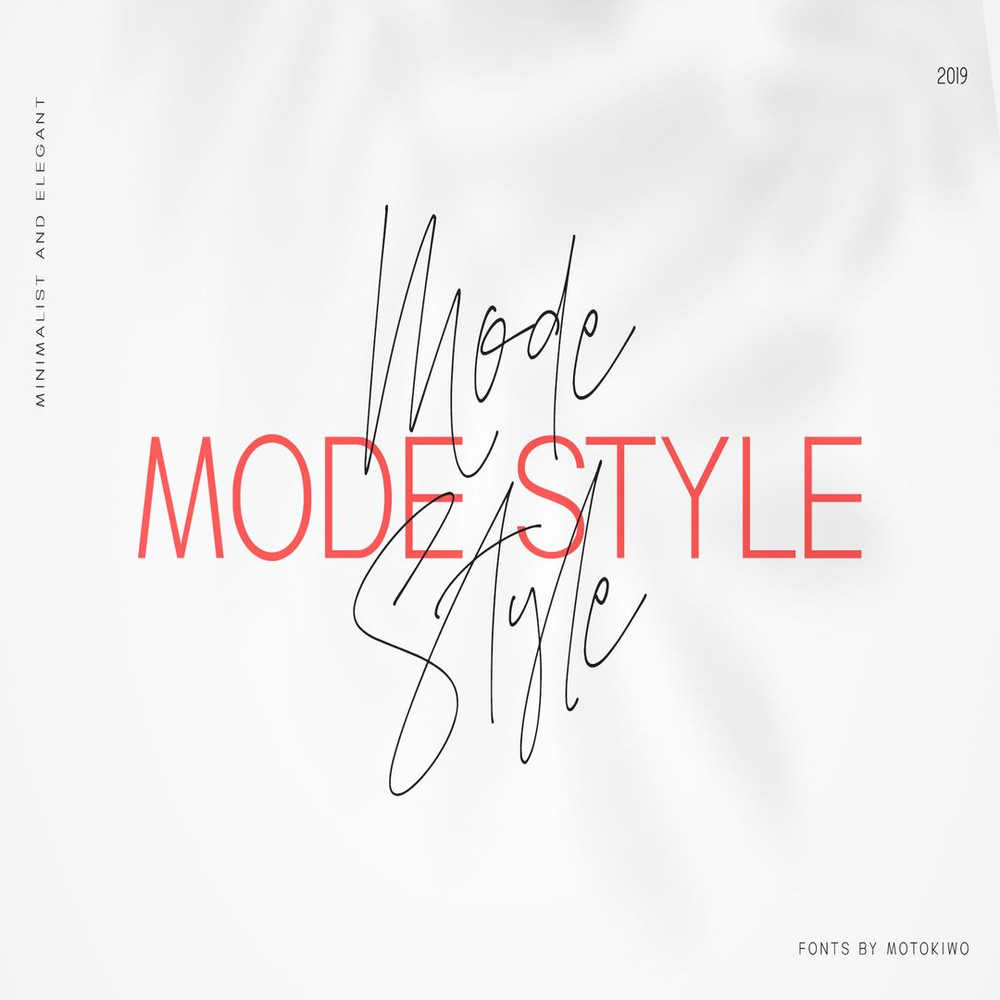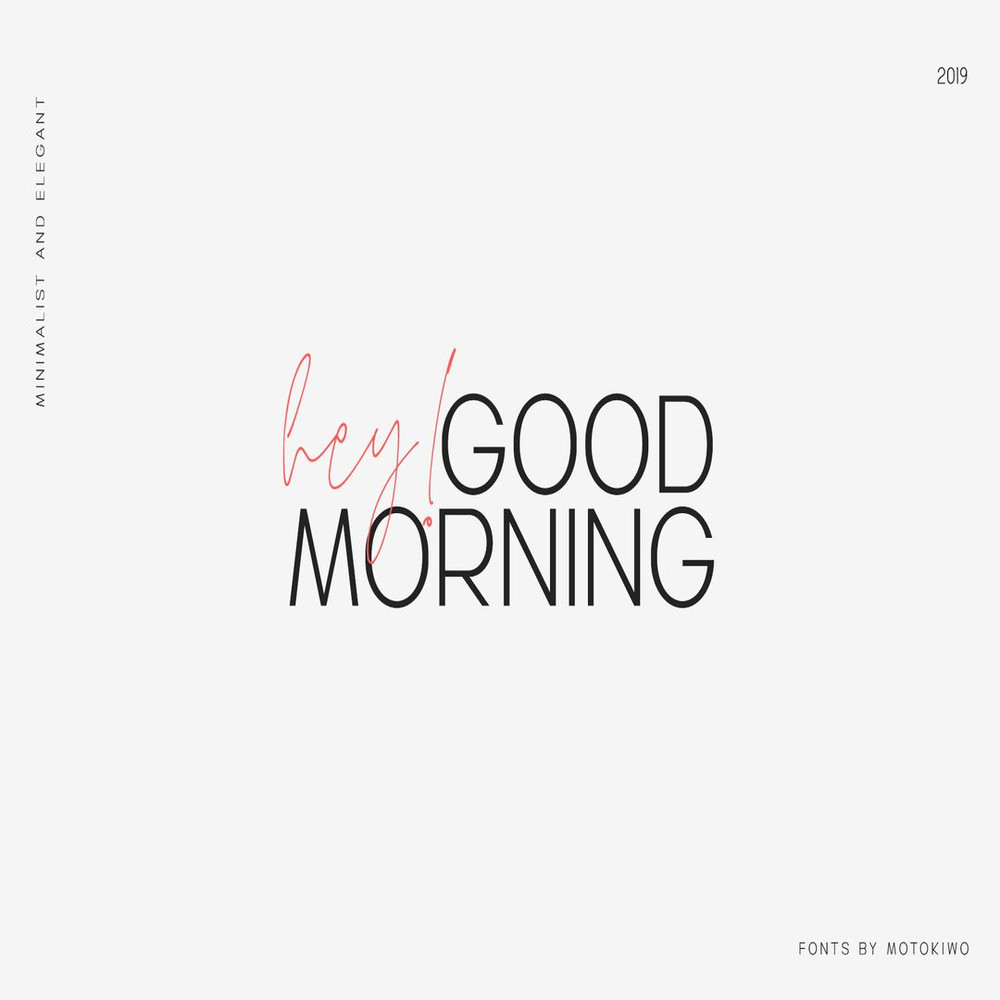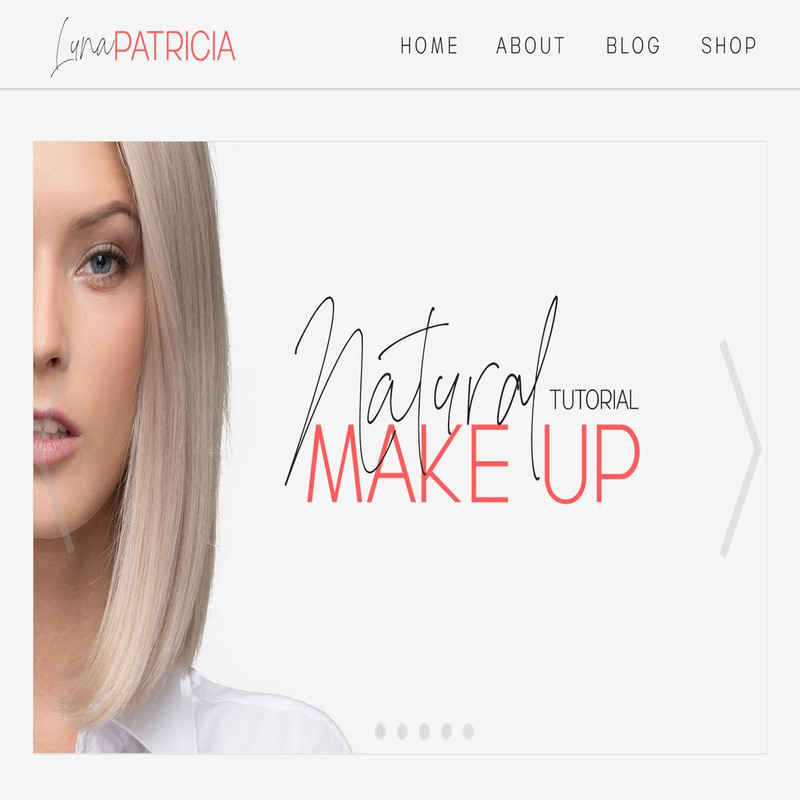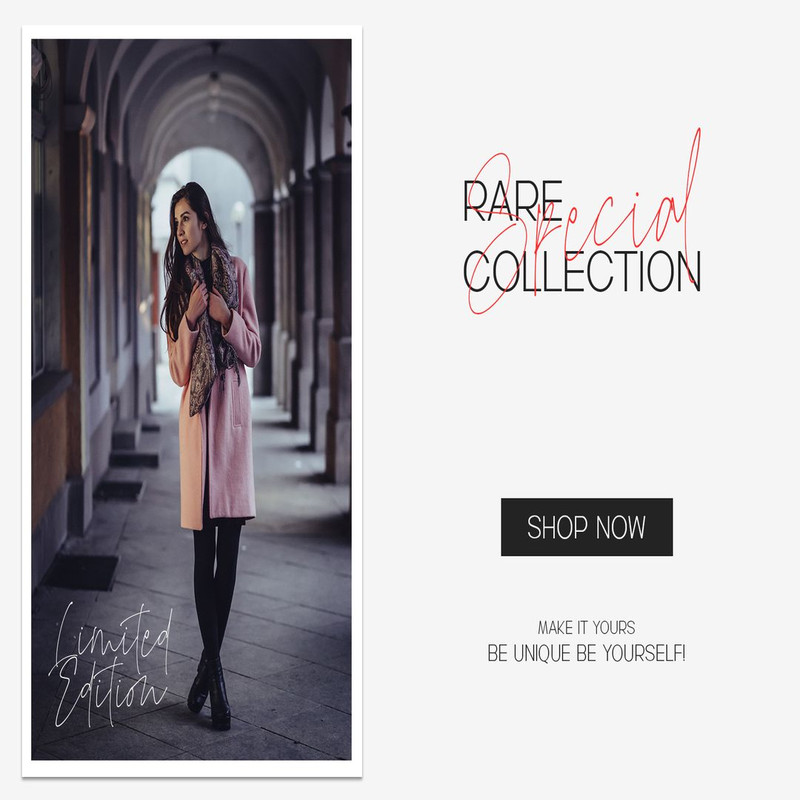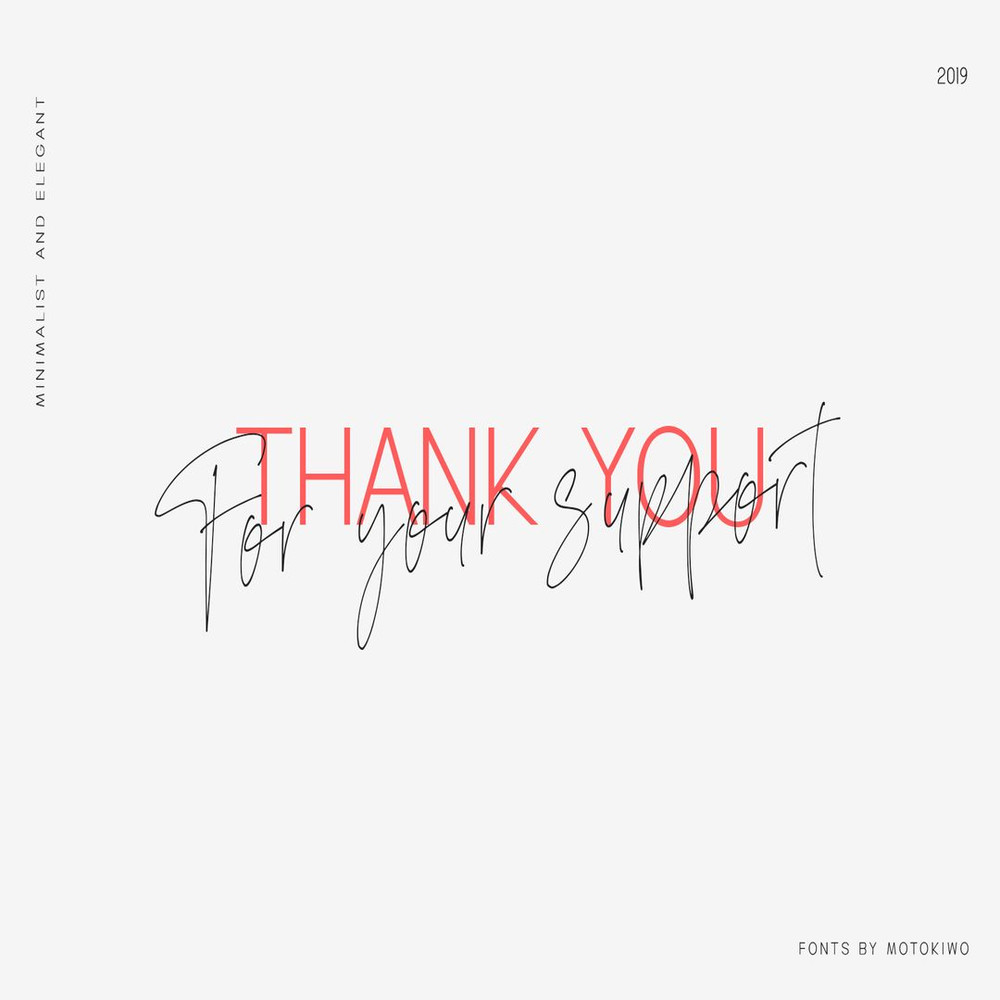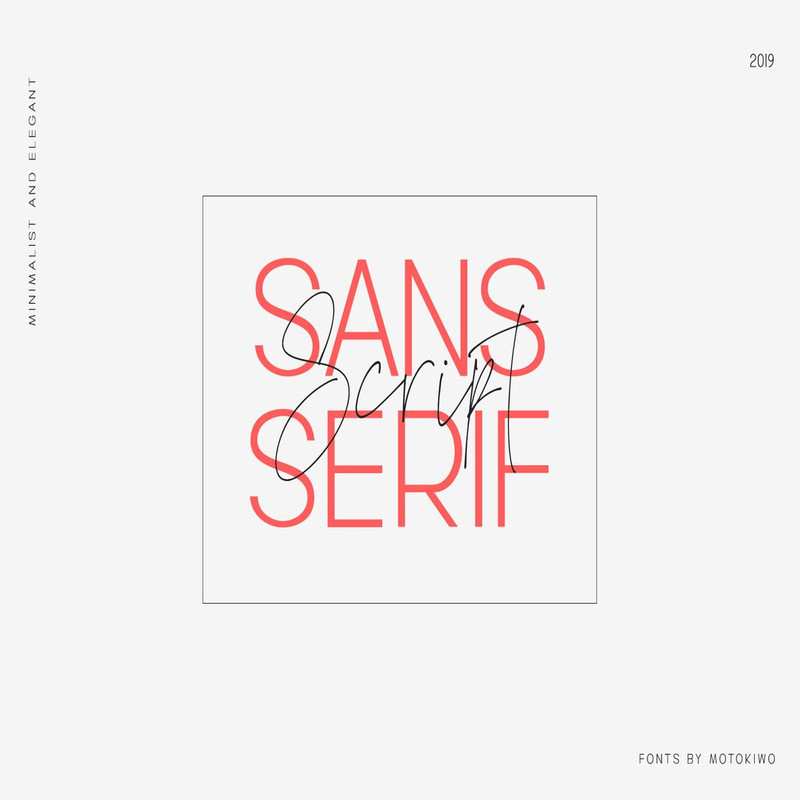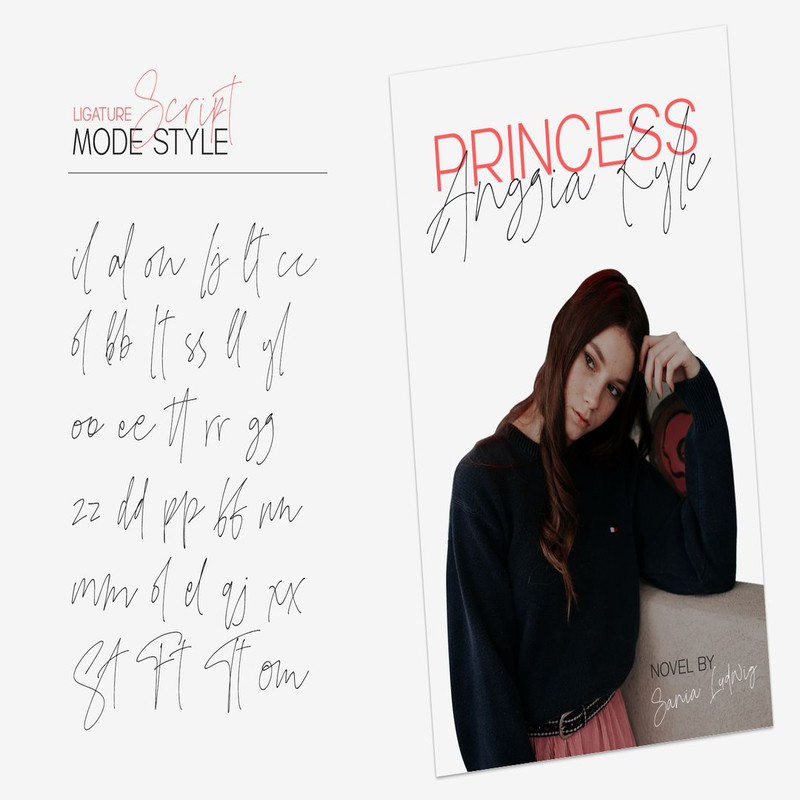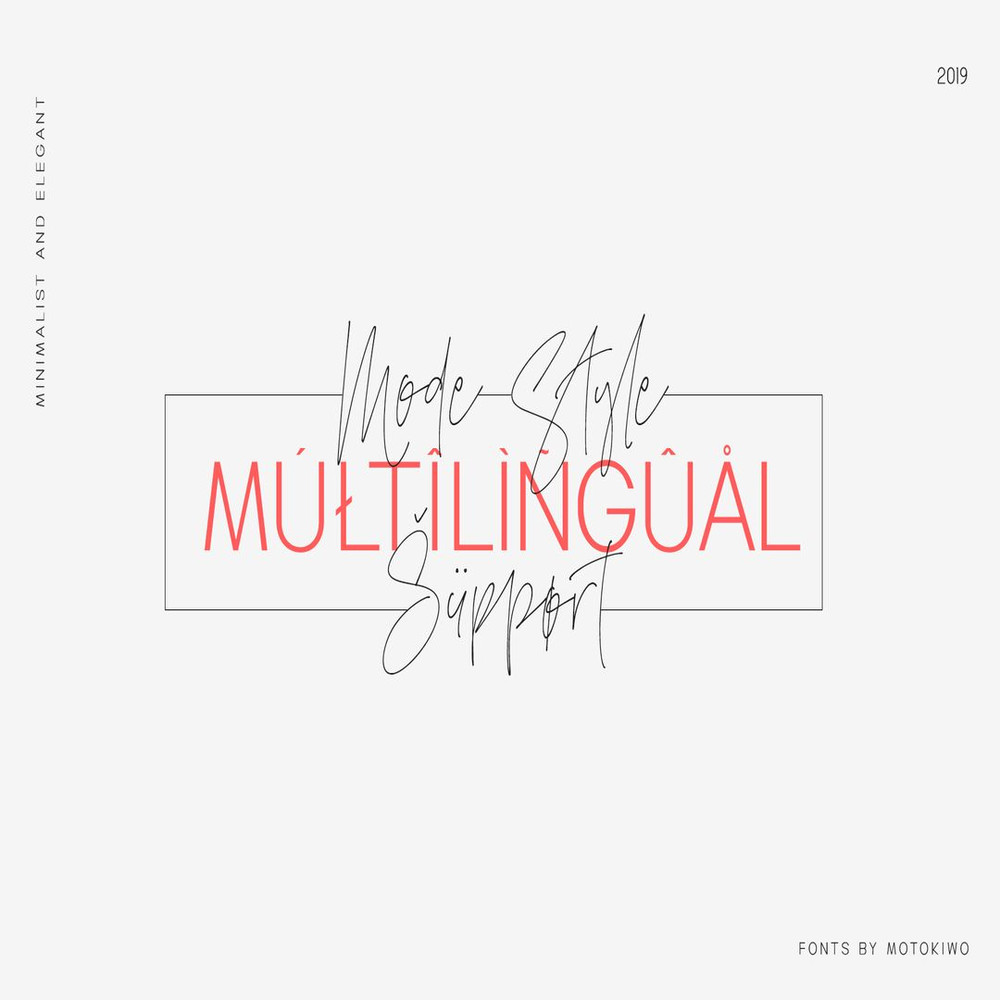
Mode Style Sans, an elegant Sans Serif font with medium wide characters. This is All Caps font with large range of punctuation and multilingual support.
Mode Style Script, a classy thin Handwritten Script font with natural pen stroke feel. Comes with ligature make this font more close to the real handwritten, also support multilingual and already PUA Encoded.